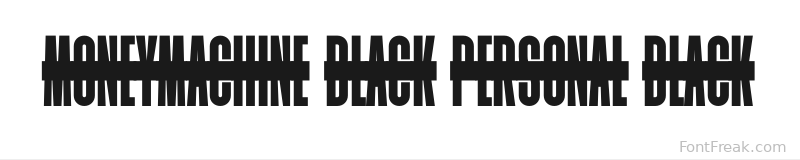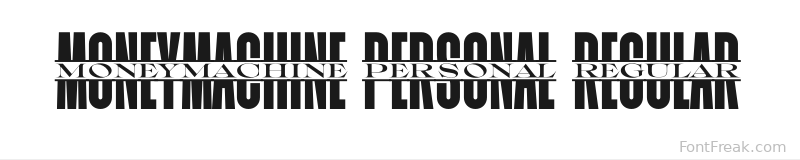
Moneymachine Black PERSONAL Black
Moneymachine PERSONAL Regular
Moneymachine Black PERSONAL Black, designed by Mans Greback, is a striking display font that captures attention with its bold and modern aesthetic. As a sans-serif typeface, it features a heavy stroke weight that provides significant visual impact, making it an excellent choice for various creative projects. The font boasts low contrast between thick and thin strokes, which enhances its legibility in both large and small sizes. The spacing is well-balanced, allowing for easy reading while maintaining a cohesive look across different applications.
This font is particularly well-suited for high-energy projects such as event flyers, promotional materials, and movie posters, where a dynamic presence is essential. Additionally, it can add a contemporary flair to branding efforts, making it ideal for logos and product packaging. Graphic designers and small business owners will find it invaluable for creating eye-catching graphics that demand attention. Content creators will also appreciate its versatility for social media posts and website headers, where a bold statement can enhance audience engagement.
What sets Moneymachine Black PERSONAL Black apart is its unique ability to blend simplicity with a strong personality. The font's robust appearance can convey confidence and modernity, making it perfect for brands looking to establish a memorable identity. Its free availability as a freeware license means that anyone can access it without cost, allowing for limitless creative possibilities. Whether you are crafting a promotional campaign or designing a personal project, Moneymachine Black PERSONAL Black font free download offers a fresh, modern solution that elevates any design.